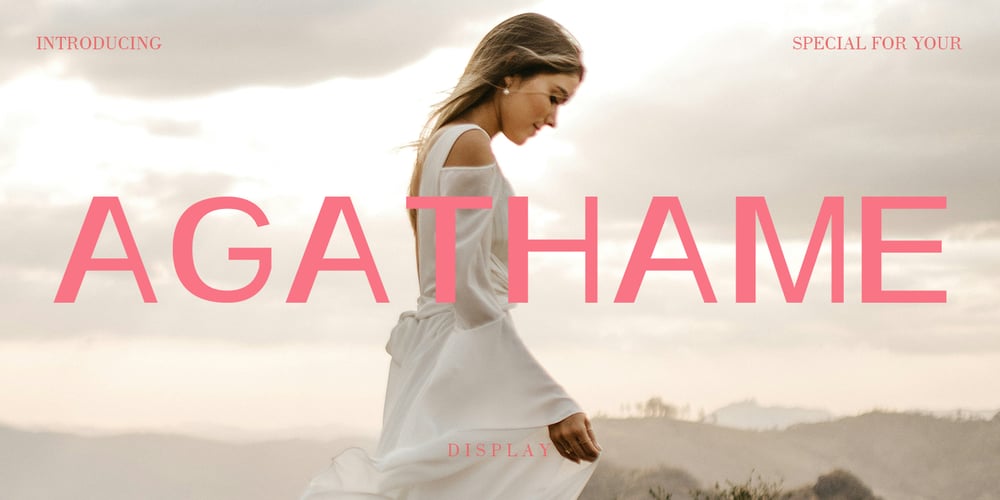
Agathame Font Family was designed by Teuku Muhammad Zaki and published by Zaki Creative. Agathame contains 1 styles and family package options. The “Agathame” font display is a modern, elegant typeface designed for high-impact visual projects. Its clean lines and bold presence make it perfect for fashion editorials, luxury branding, or statement headers in websites and print media. The stylish yet minimalistic design also fits well in social media campaigns, magazines, event posters, and promotional banners, providing a sleek and professional look.Uses: Fashion and beauty branding High-end product packaging Editorial and magazine covers Luxury website headers Event posters Invitations or promotional material